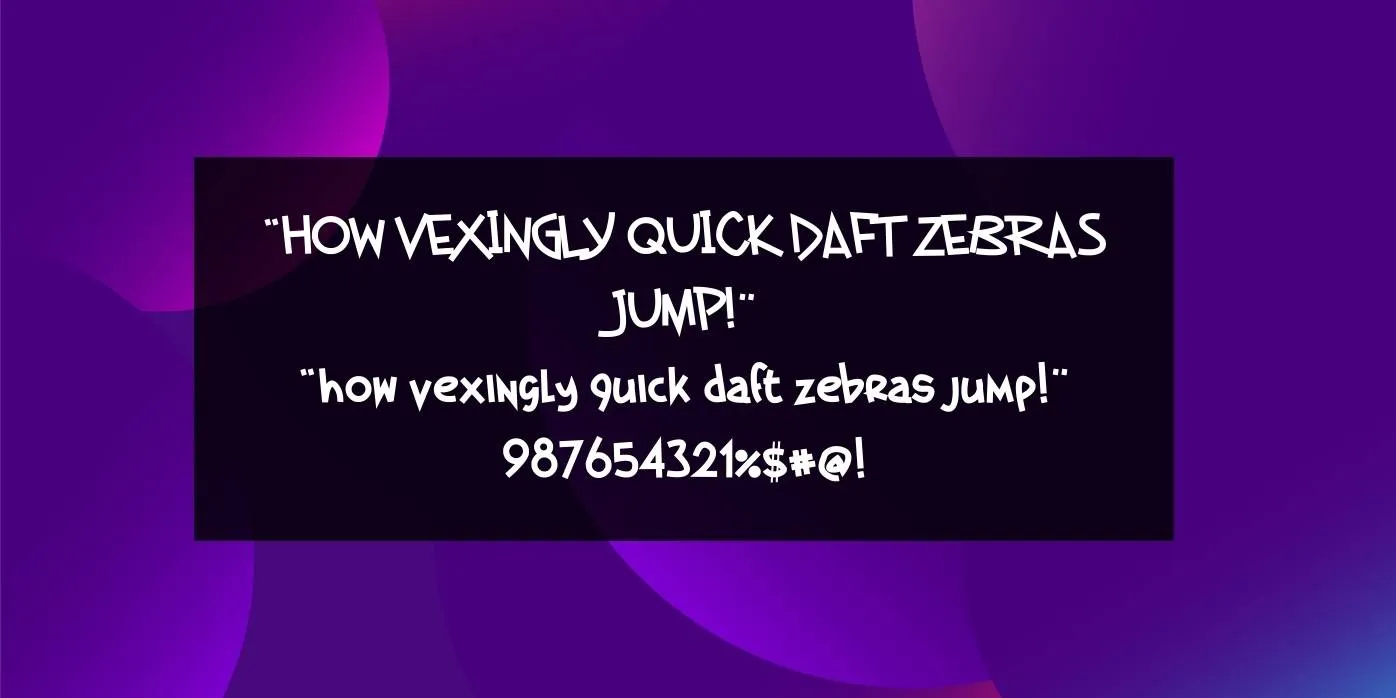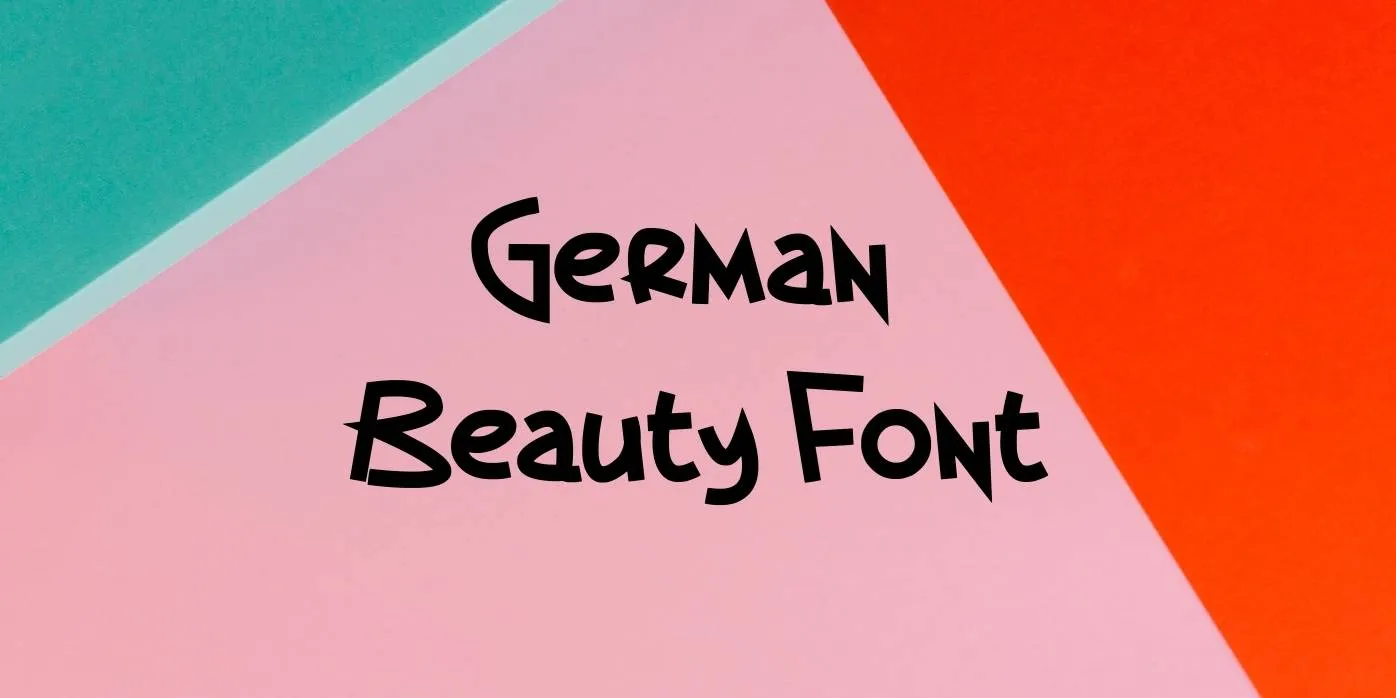
German Beauty Font
Today, we are going to introduce a classic typeface known as the German Beauty Font. This typeface belongs to the fancy font family. it was developed by Neoglyph Studio. This stunning font is perfect for creating elegant designs.
This tremendous font has a unique design that makes it stand out from other fancy fonts. The German Beauty Typeface is available in two styles: Regular and Light. It includes support for multiple languages, including Latin, Cyrillic, and Greek. Its copy and paste function is best for different graphic designs.
You can use peanuts font which has the same style and characters as this one. This tremendous font is a great choice for a wide range of projects, such as logos, branding, invitations, stationery, and more. If you are looking for a fancy font with a unique design, the German Beauty Font is a great option. You can also the generator tool of this typeface for various graphic designs.